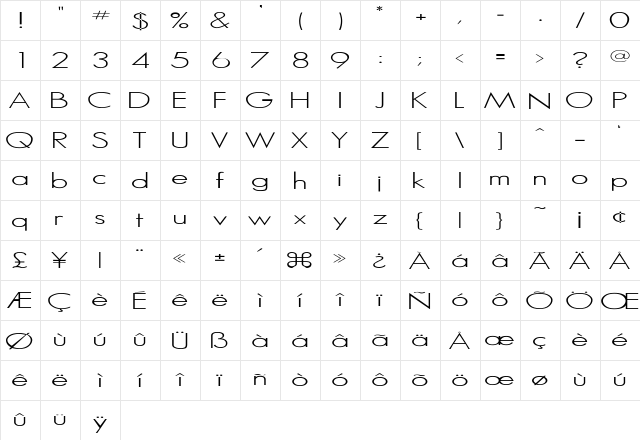
Kapostasy-Light Regular
Design Context for Kapostasy-Light Typeface
Kapostasy-Light takes a measured approach to typography — its balanced proportions and neutral character make it a reliable workhorse for both digital and print work. The delicate stroke weight brings airiness and refinement to layouts.